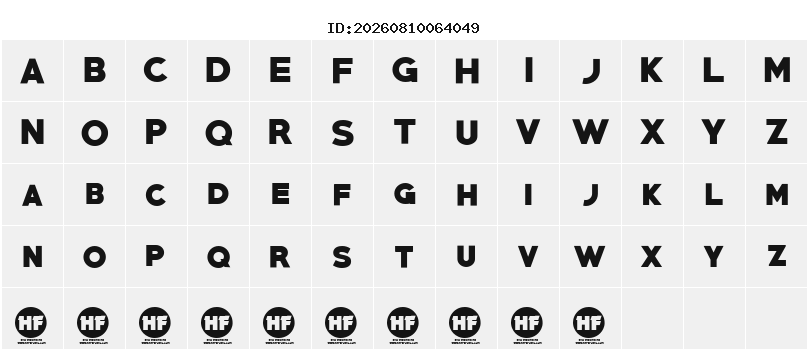
PRIMETIME Preview
• Font Name: PRIMETIME
• Full Font Name: PRIMETIME Regular
• Designer: Guilhem GRECO
• Manufacturer: Hypefonts™
• Description: PRIMETIME Regular is a font by Hypefonts™, designed by Guilhem GRECO in 2014.
About PRIMETIME.ttf
PRIMETIME.ttf is a modern, elegant sans-serif font designed for ultimate readability and visual harmony. Perfect for branding, headlines, web design, and print materials.